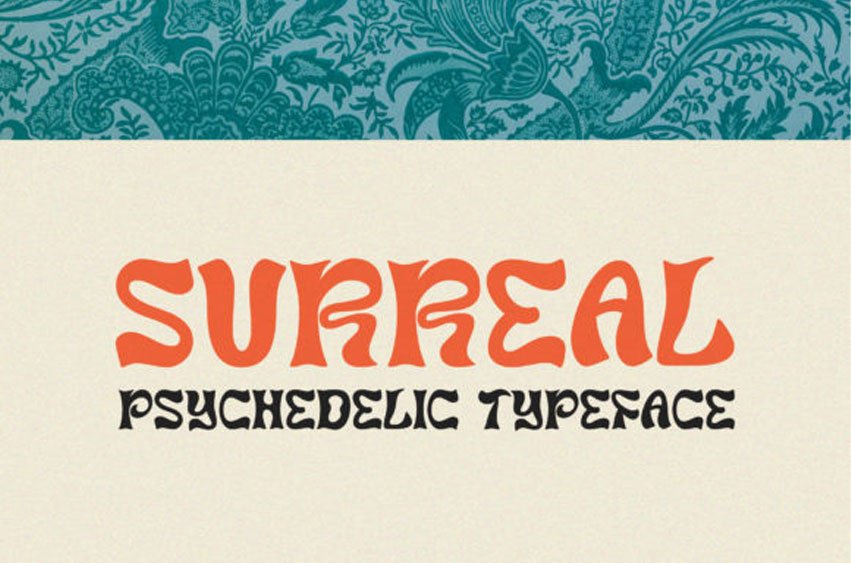
Surreal Font is a whimsical and wavy display font.
No matter the topic, this font will be an incredibly asset to your fonts’ library, as it has the potential to elevate any creation.